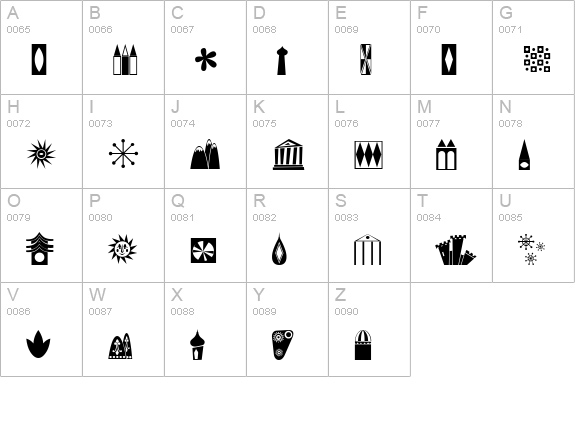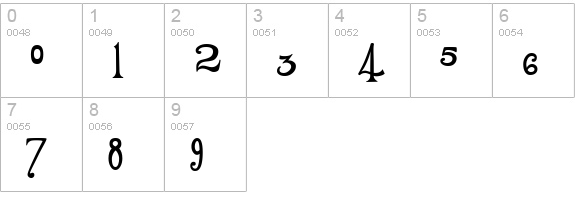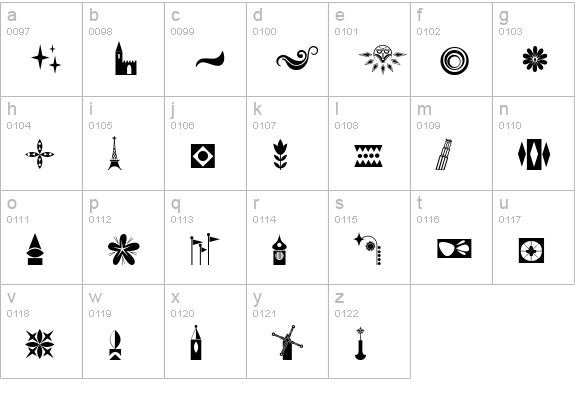
Blairesque Happy Grams JF font is a playful and whimsical typeface that exudes joy and positivity. Its charming and quirky design is perfect for adding a touch of fun to any project. The rounded edges and unique letterforms give this font a cheerful and energetic vibe that is sure to bring a smile to anyone's face. What makes Blairesque Happy Grams JF font even better is that it is available for free download at FontsMarket.com. This means you can easily access this delightful font without any cost, making it a great choice for adding a dose of happiness to your designs without breaking the bank. So go ahead and download Blairesque Happy Grams JF font today and spread some joy with your creative projects!